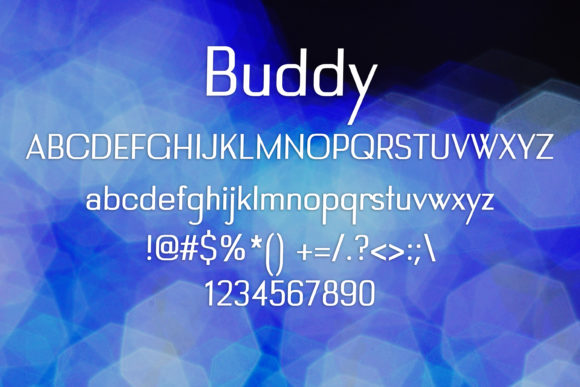
Introducing Buddy Font: Elevate Your Designs with Elegance and Sophistication
In the world of typography, a font can make or break a design. It’s the foundation upon which the entire visual aesthetic is built. For designers and crafters seeking to add a touch of elegance and sophistication to their work, look no further than the Buddy Font. This stunning display font is designed to make a statement, with its smoothly rounded edges and slightly tilted look and feel.
The Characteristics of Buddy Font
Buddy Font is an elegant and refined typeface that exudes confidence and legibility. Its unique characteristics make it an ideal choice for a wide range of design projects, from branding and advertising to packaging and digital media. Here are some of the key features that set Buddy Font apart:
- Smoothly Rounded Edges: The rounded edges of Buddy Font give it a soft and approachable feel, making it perfect for designs that require a touch of warmth and personality.
- Slightly Tilted Look: The subtle tilt of Buddy Font adds a sense of dynamism and energy to any design, making it ideal for projects that require a bit of flair.
- Elegant and Refined: Buddy Font is a sophisticated typeface that is perfect for high-end designs, such as luxury branding, fine art, and premium products.
- High Legibility: Despite its elegant appearance, Buddy Font is highly legible, making it suitable for use in a wide range of applications, from body text to headlines.
Why Choose Buddy Font?
With so many fonts available, why choose Buddy Font for your next design project? Here are just a few reasons why this stunning typeface stands out from the crowd:
- Versatility: Buddy Font is a highly versatile typeface that can be used in a wide range of design projects, from print to digital media.
- Uniqueness: The subtle tilt and rounded edges of Buddy Font give it a unique and distinctive look that sets it apart from more traditional typefaces.
- Ease of Use: Buddy Font is incredibly easy to use, with a simple and intuitive design that makes it easy to pair with other fonts and design elements.
How to Use Buddy Font in Your Designs
Now that you’ve fallen in love with Buddy Font, it’s time to learn how to use it in your designs. Here are a few tips to get you started:
- Pair with Other Fonts: Buddy Font pairs beautifully with a wide range of other fonts, from sans-serif typefaces to elegant scripts.
- Use for Headlines: The elegant and refined appearance of Buddy Font makes it perfect for use in headlines and titles.
- Add a Pop of Personality: Use Buddy Font to add a touch of personality and whimsy to your designs, such as in packaging or advertising.
As a designer or crafter, you’re always on the lookout for new and exciting ways to elevate your work. Here are a few tips for incorporating Buddy Font into your design workflow:
- Experiment with Different Sizes: Buddy Font looks stunning in a wide range of sizes, from large headlines to smaller body text.
- Play with Color: The elegant appearance of Buddy Font makes it perfect for use with a wide range of colors and design elements.
- Don’t Be Afraid to Get Creative: Buddy Font is a versatile typeface that can be used in a wide range of design projects, so don’t be afraid to think outside the box.
In conclusion, Buddy Font is a stunning display font that is sure to elevate your designs with its elegant and refined appearance. With its smoothly rounded edges and slightly tilted look and feel, this typeface is perfect for designers and crafters seeking to add a touch of sophistication and elegance to their work.